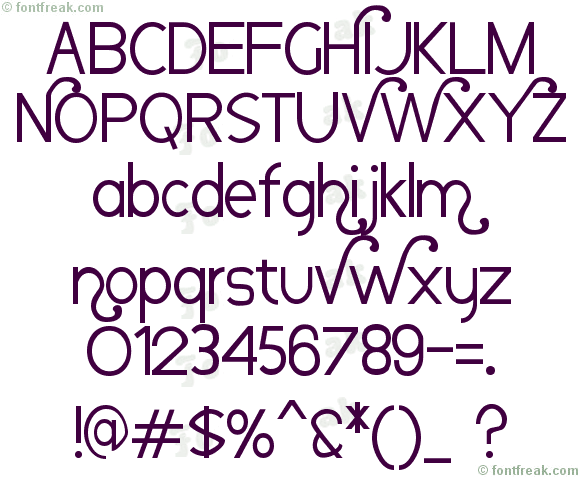
Nauvoo
About Nauvoo
Nauvoo, designed by Tepid Monkey Fonts, is a striking sans-serif typeface that seamlessly combines modern aesthetics with a touch of charm. Its clean lines and balanced proportions make it a versatile choice for various design projects. The font features a medium stroke weight with minimal contrast, ensuring readability while maintaining a contemporary feel. The generous spacing between the letters adds an airy quality, making it suitable for both headlines and body text. Nauvoo's design includes subtle rounded edges that lend a friendly, approachable character, making it perfect for designs that aim to connect with the audience on a personal level.
This font shines in several specific use cases. It is an excellent choice for wedding invitations, where its elegance can elevate the overall design. Restaurant menus can also benefit from Nauvoo’s clarity and style, helping to present dishes in an appealing manner. Additionally, it works well for movie posters, where its modern look can capture the essence of a film while ensuring that the title stands out. Content creators will find Nauvoo ideal for social media graphics, where eye-catching typography can enhance engagement.
In conclusion, Nauvoo stands out not only for its aesthetic qualities but also for its versatility across various design needs. The Nauvoo font free download presents a fantastic opportunity for creatives to incorporate a unique typeface into their work, ensuring that their projects resonate with style and clarity.